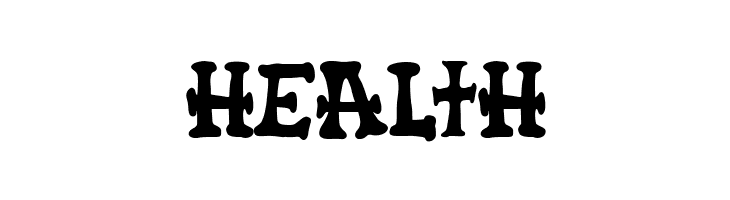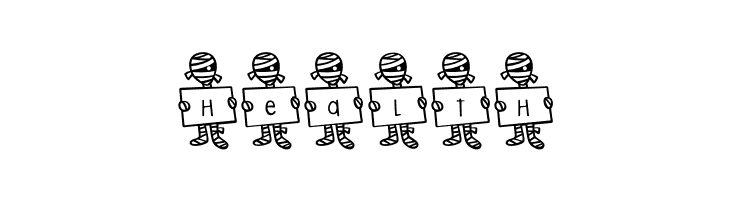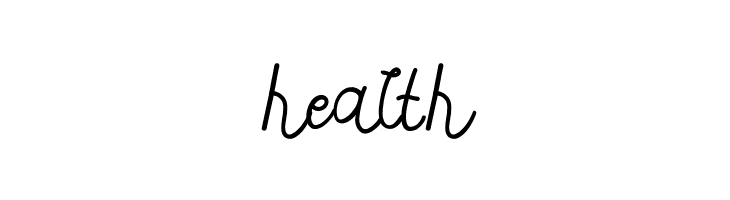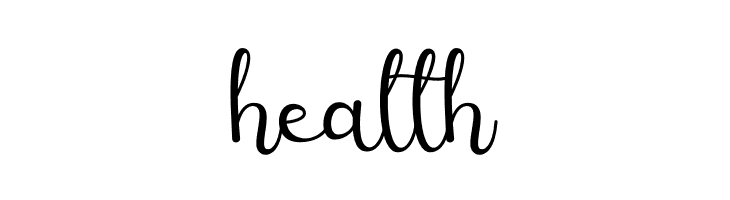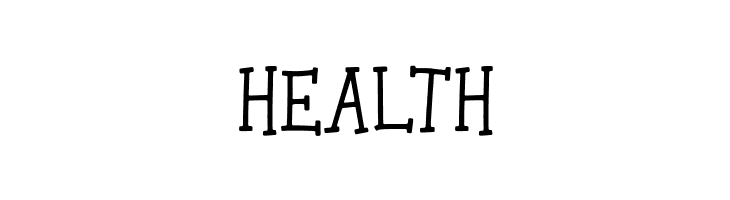
A spooky, dripping font ideal for Halloween themes.
A playful, spooky font with skull and bone elements, perfect for Halloween themes.
A playful, handwritten font with rounded edges and a friendly style.
A whimsical, mummy-themed decorative font perfect for Halloween projects.
A charming, playful script font with elegant, flowing letterforms.
A bold, playful script font with connected characters and a lively style.
A bold, decorative font with Halloween-themed elements integrated into each letter.
A playful, handwritten script font with flowing, connected letters.
A playful and whimsical script font with flowing, interconnected letters.
A playful, hand-drawn font with quirky, uneven lines and lively character shapes.